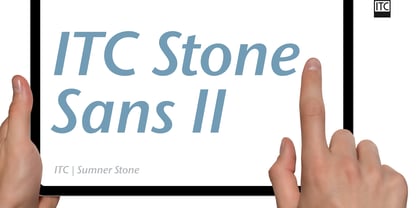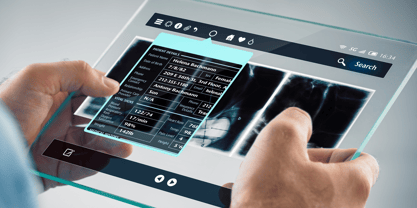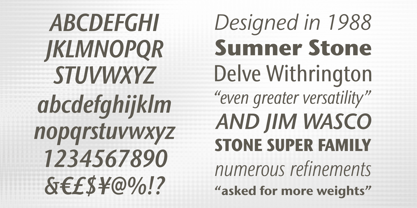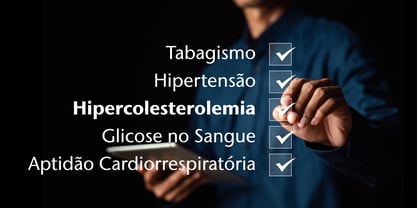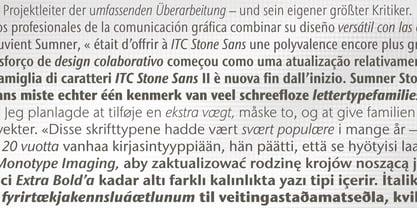
ITC Stone® Sans II
La famille de polices ITC Stone Sans II a été conçue par Sumner Stone et publiée par ITC. ITC Stone Sans II contient 24 styles et options de package familial.
ITC Stone Sans II, designed by the renowned typographer Sumner Stone – then Director of Typography at Adobe—and released in 1987 by ITC alongside Bob Ishi (whose name literally means “stone” in Japanese), can bring exceptional clarity and cohesion to wayfinding systems. As a member of the Stone superfamily (which includes Sans II, Serif, Humanist, and Informal variants), it shares consistent x‑height, cap height, and stem weight across all designs, enabling seamless typographic integration in hardcopy and digital applications.
ITC Stone Sans II’ open counters, subtle letterforms, and structured sans-serif construction align with Americans with Disabilities Act guidelines, prioritizing legibility and reader comprehension.
Stone Sans II is increasingly adopted in wayfinding strategies – supporting streamlined navigation in corridors, signage, and digital directories. Its precision and neutrality have made ITC Stone Sans II a design staple – in environments where clarity can be life-enhancing, ensuring that wayfinding is not only functional but also visually calming and consistently clear.